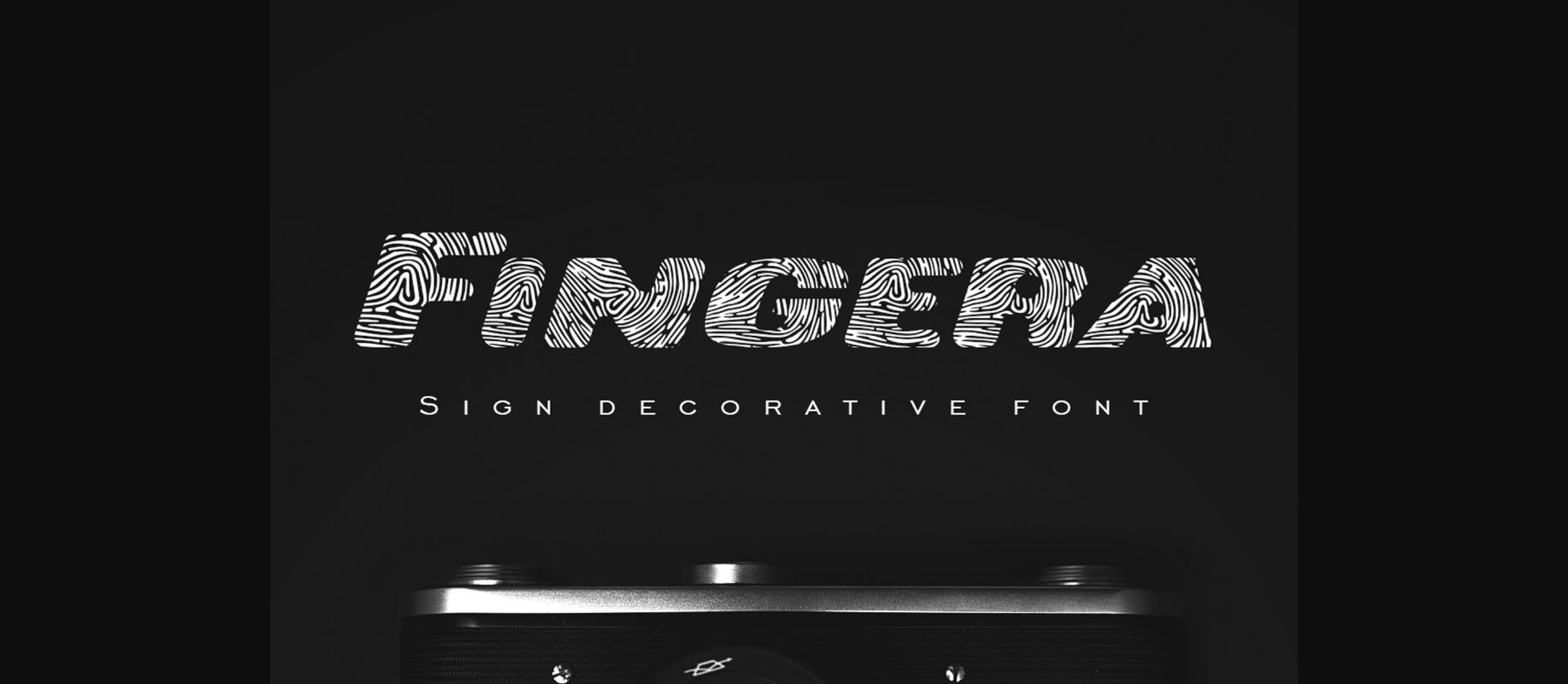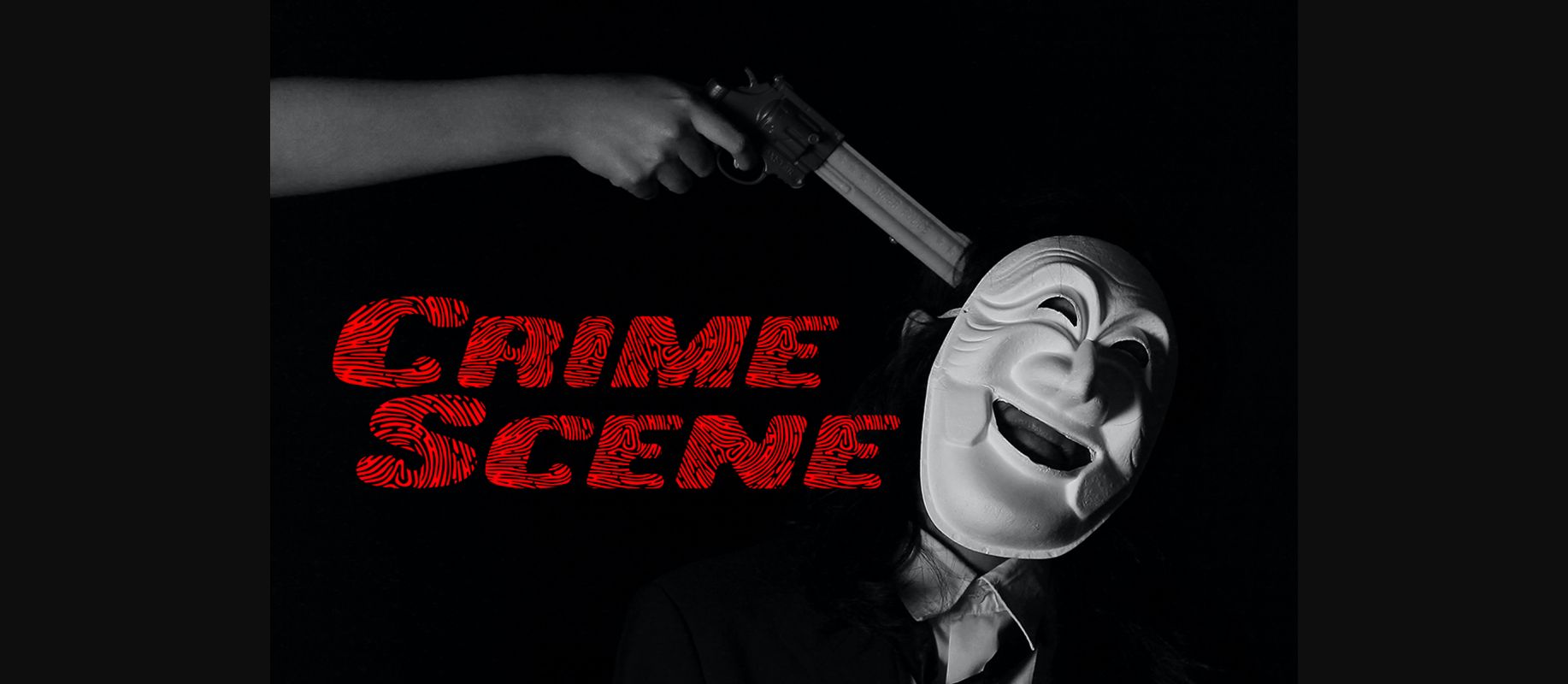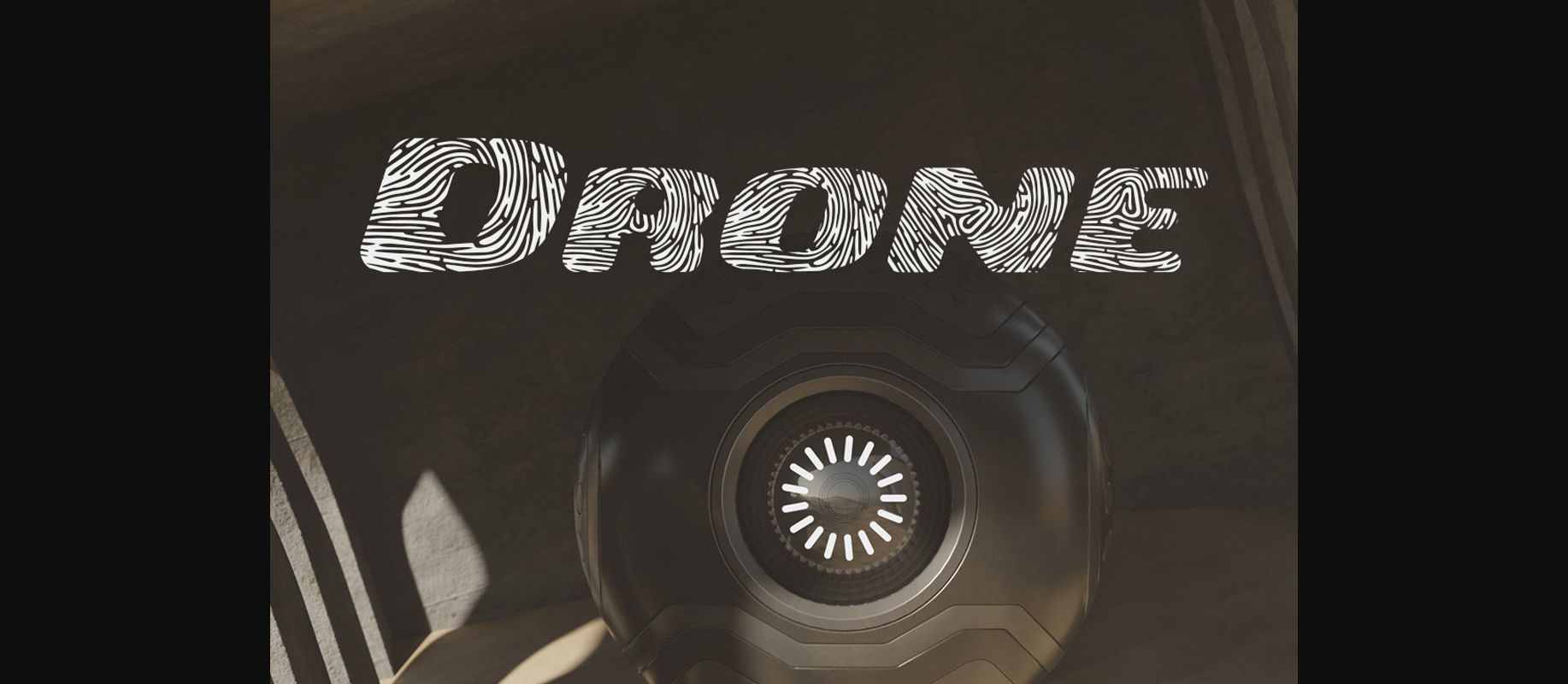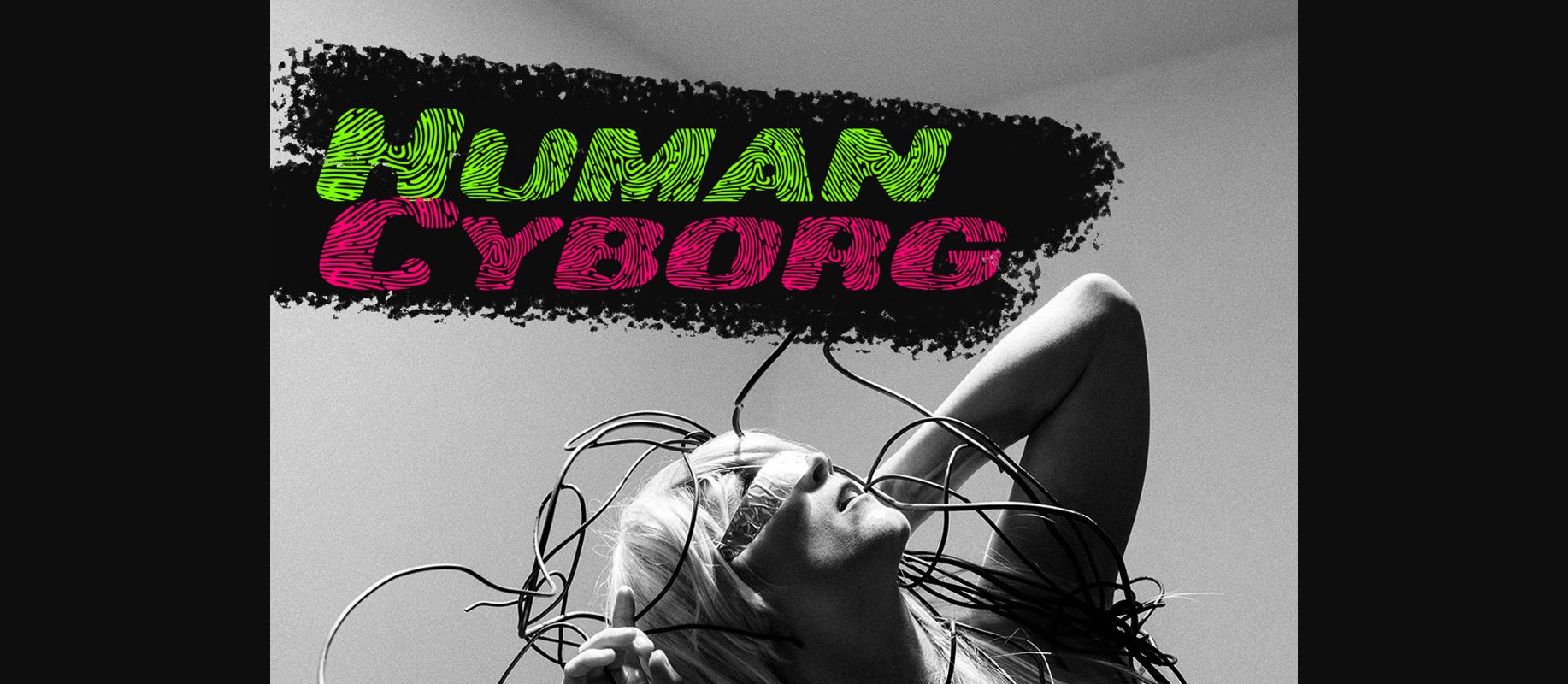
About Fingera Font
Fingera is a cool and original decorative font. Every touch is inspired by the fingerprint of a hand, has character and is elegant, like a real handprint. Add it confidently to your creations and you will love the results!